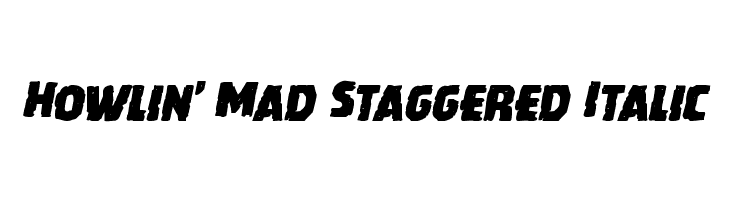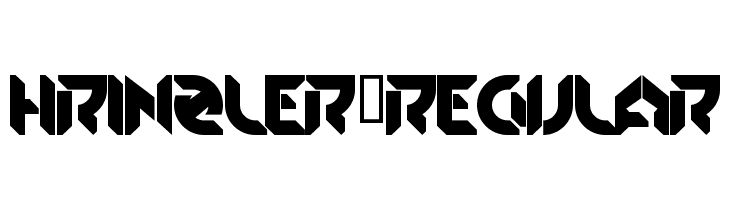
A bold, expressive script font with flowing, interconnected strokes.
Highly legible geometric sans-serif ideal for signage.
Bold, geometric pictograms for road and traffic signage.
A bold, geometric pictogram icon set for signage and wayfinding.
Bold, geometric pictogram icon set for signage and wayfinding.
A set of pictographic icons, not a standard font.
Bold, geometric pictograms and sans-serif numerals for signage.
Bold, geometric pictograms and numerals for signage.
An elegant and flowing script font with intricate, interconnected letterforms.
An elegant, flowing script font with intricate loops and a handwritten feel.
A refined serif font with elegant, thin strokes and high contrast.
A bold, geometric font with angular letterforms and a modern, futuristic style.
A bold, angular font with a futuristic and dynamic style.
A modern, geometric sans-serif font with clean lines and a technical look.
A modern, geometric font with clean lines and a technical appearance.
A bold, geometric font with a futuristic and industrial design.
An elegant, flowing script font with ornate uppercase and smooth lowercase letters.
Handwritten cursive script font.
A geometric, futuristic font with angular, block-like letterforms.
A bold, geometric font with a futuristic, digital aesthetic.
A bold, italicized font with a futuristic, angular design.
A modern, italicized font with a futuristic and dynamic design.
A geometric, futuristic font with angular and modular letterforms.
A futuristic, geometric, light italic font with angular lines and a tech-inspired style.
A bold, textured vintage font with a distressed, rustic look.
A bold, dynamic brushstroke font with expressive, hand-painted style.
A bold, artistic font with sharp, angular strokes and a calligraphic influence.
A decorative font with intricate patterns and textures, ideal for creative projects.
A dynamic, brush-style cursive font with medium contrast and artistic flair.
A bold and expressive brush script font with dynamic strokes.
A decorative font with intricate, swirling patterns and a vintage flair.